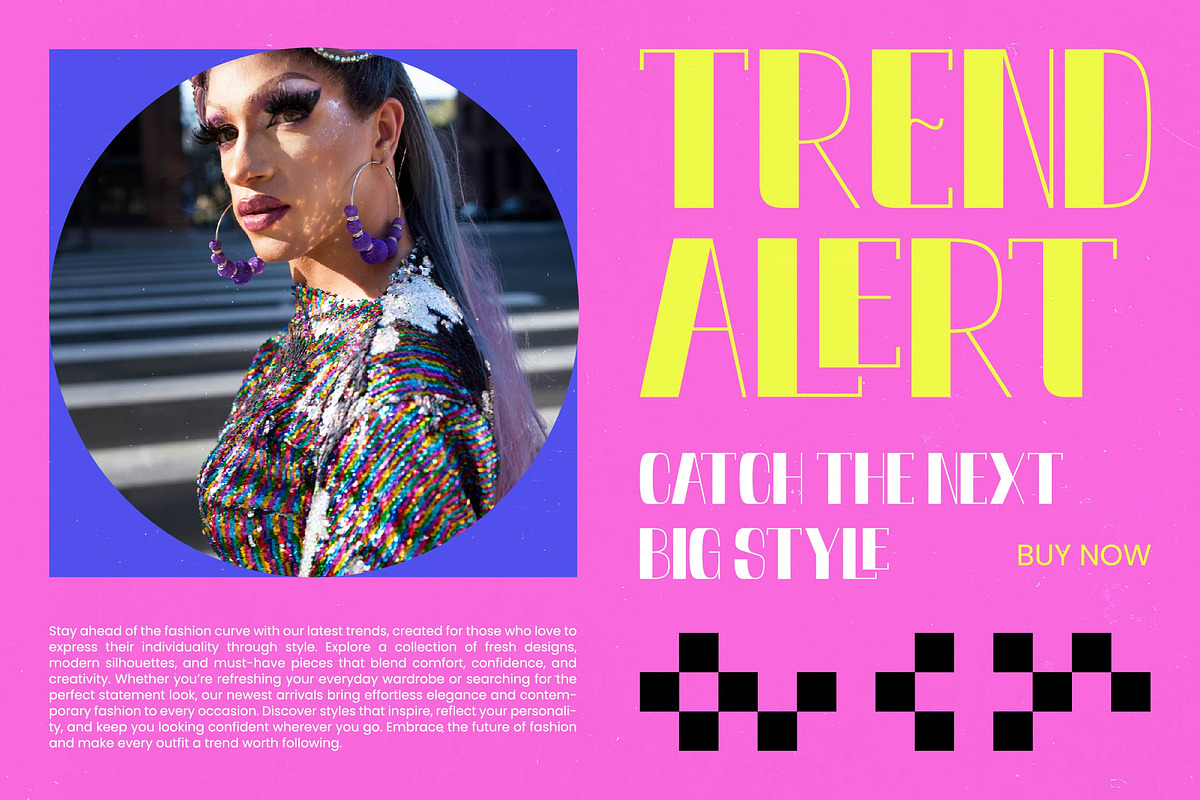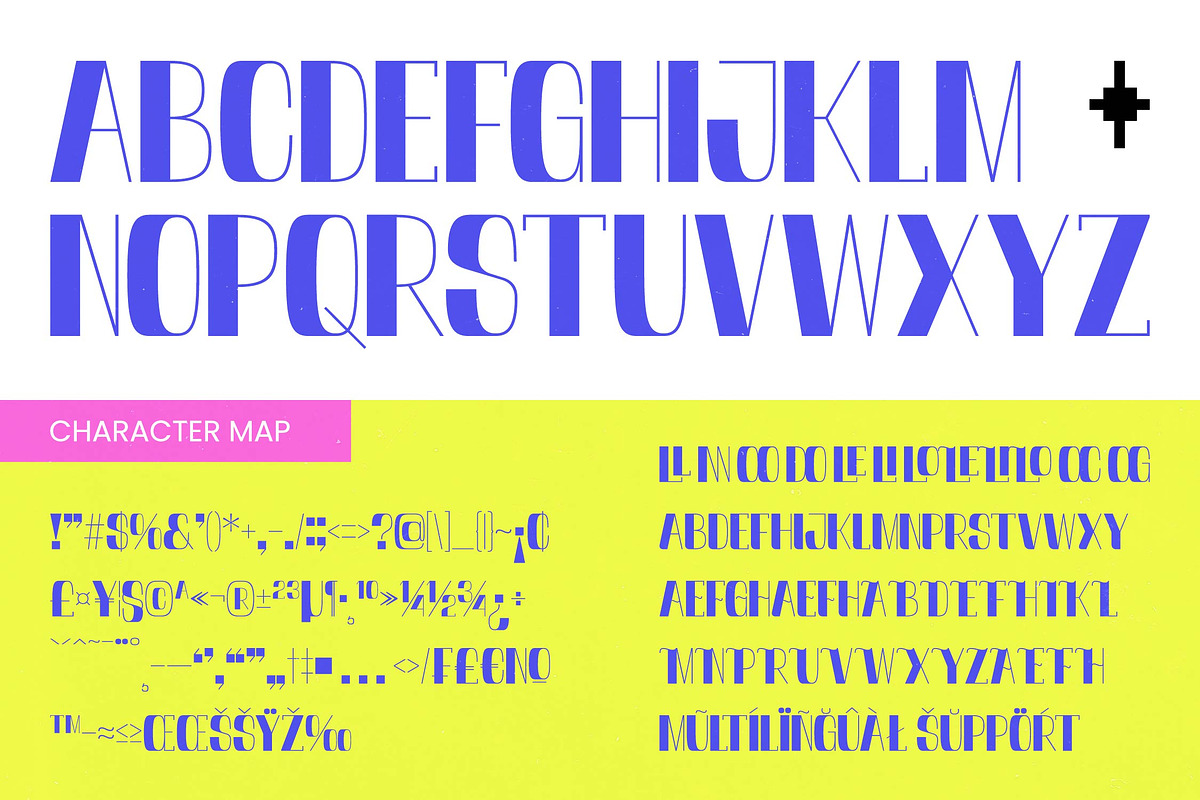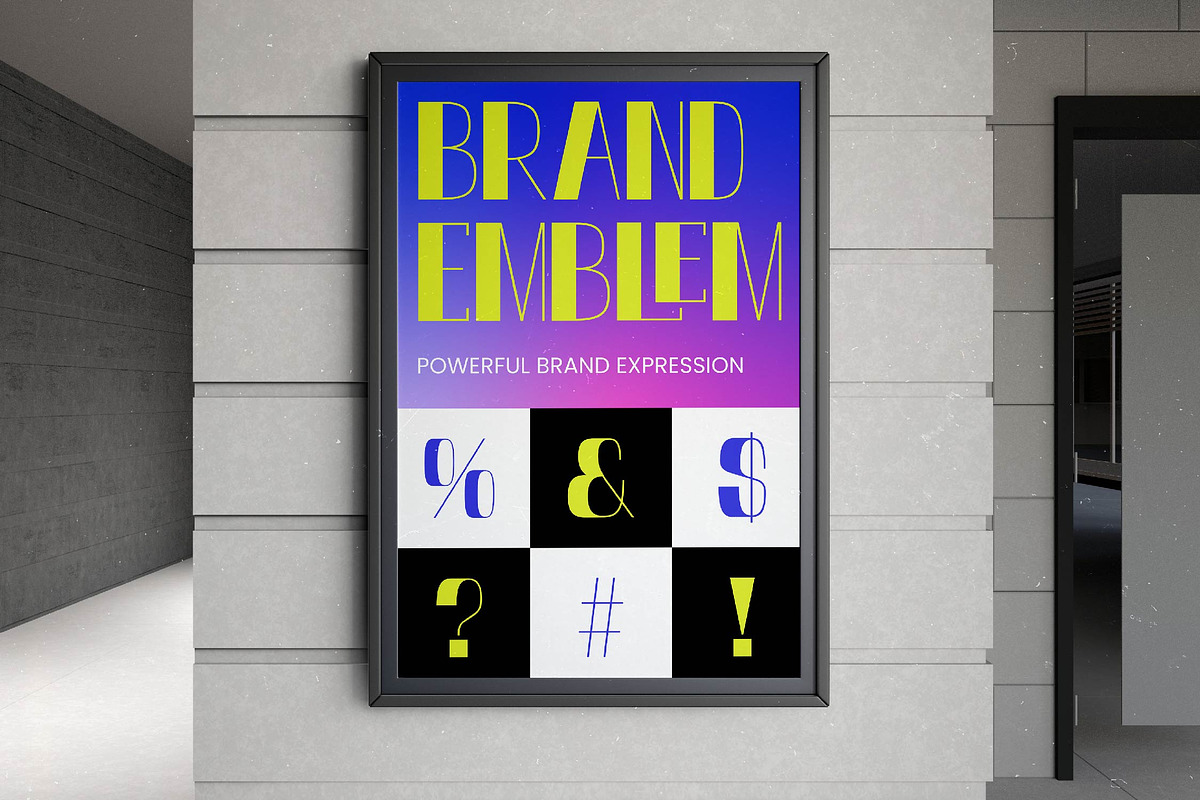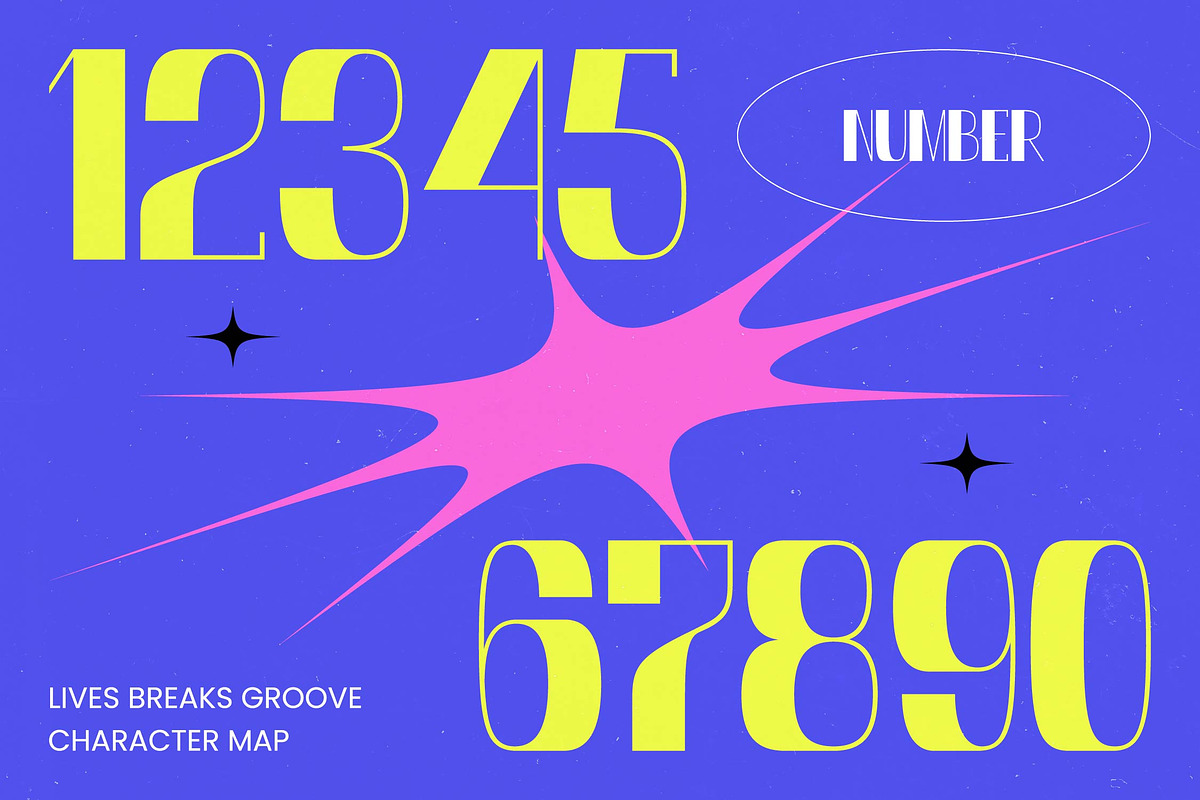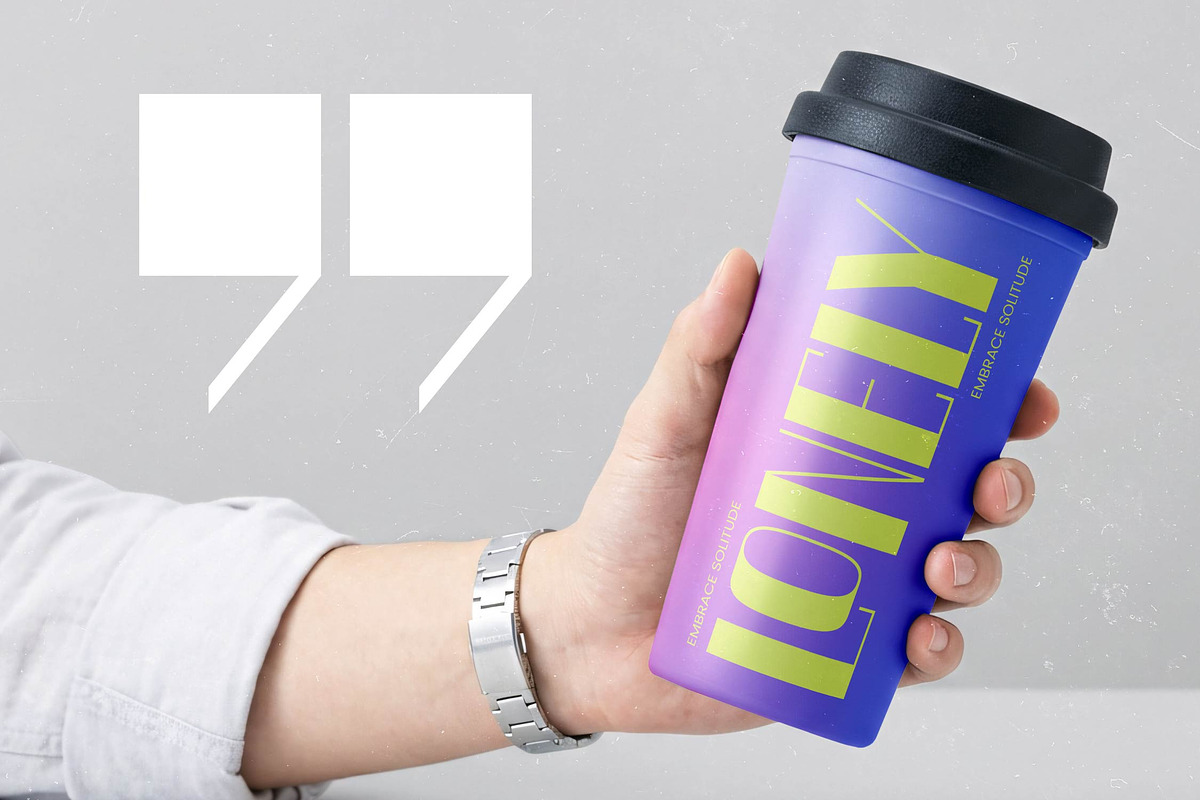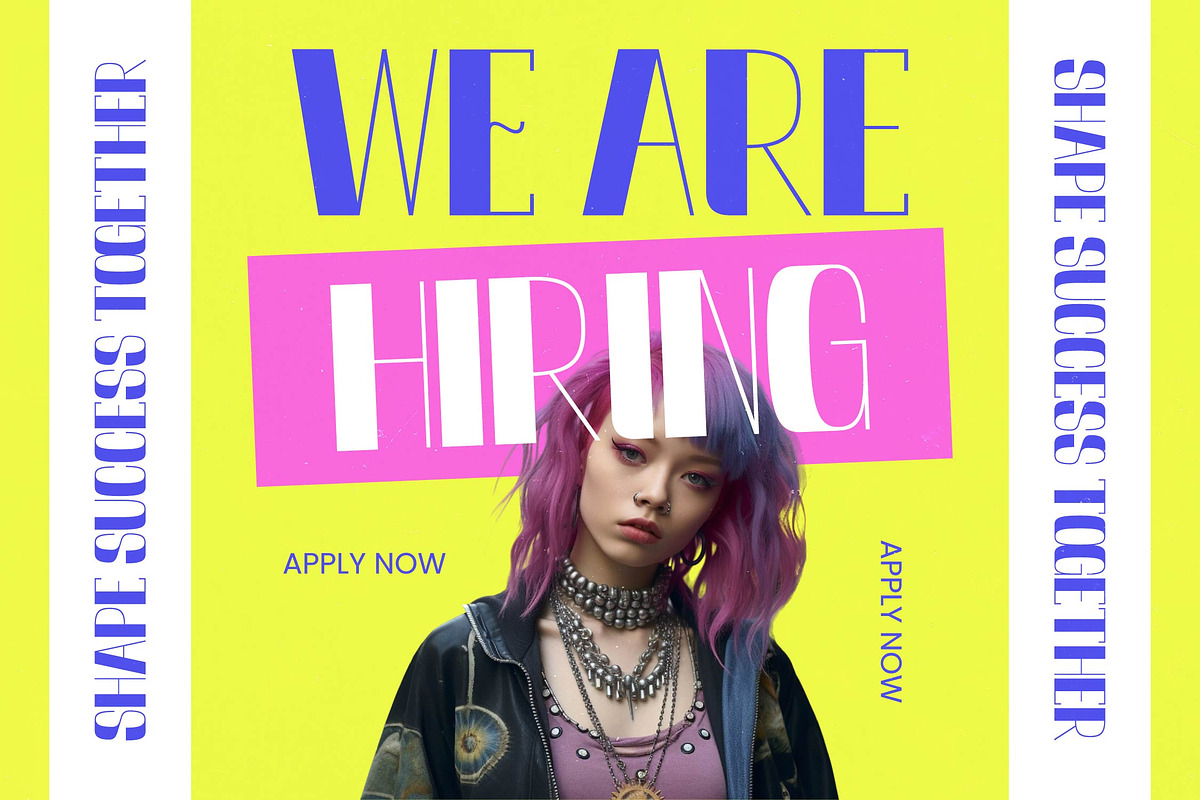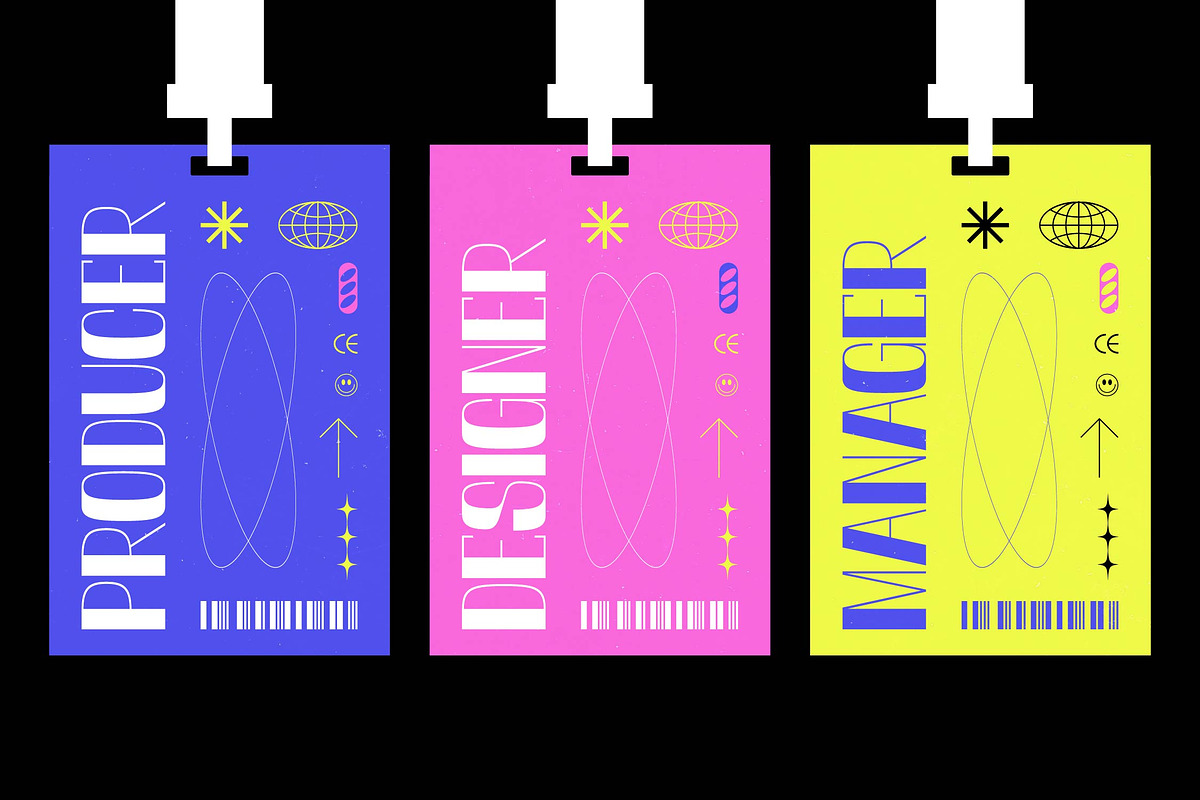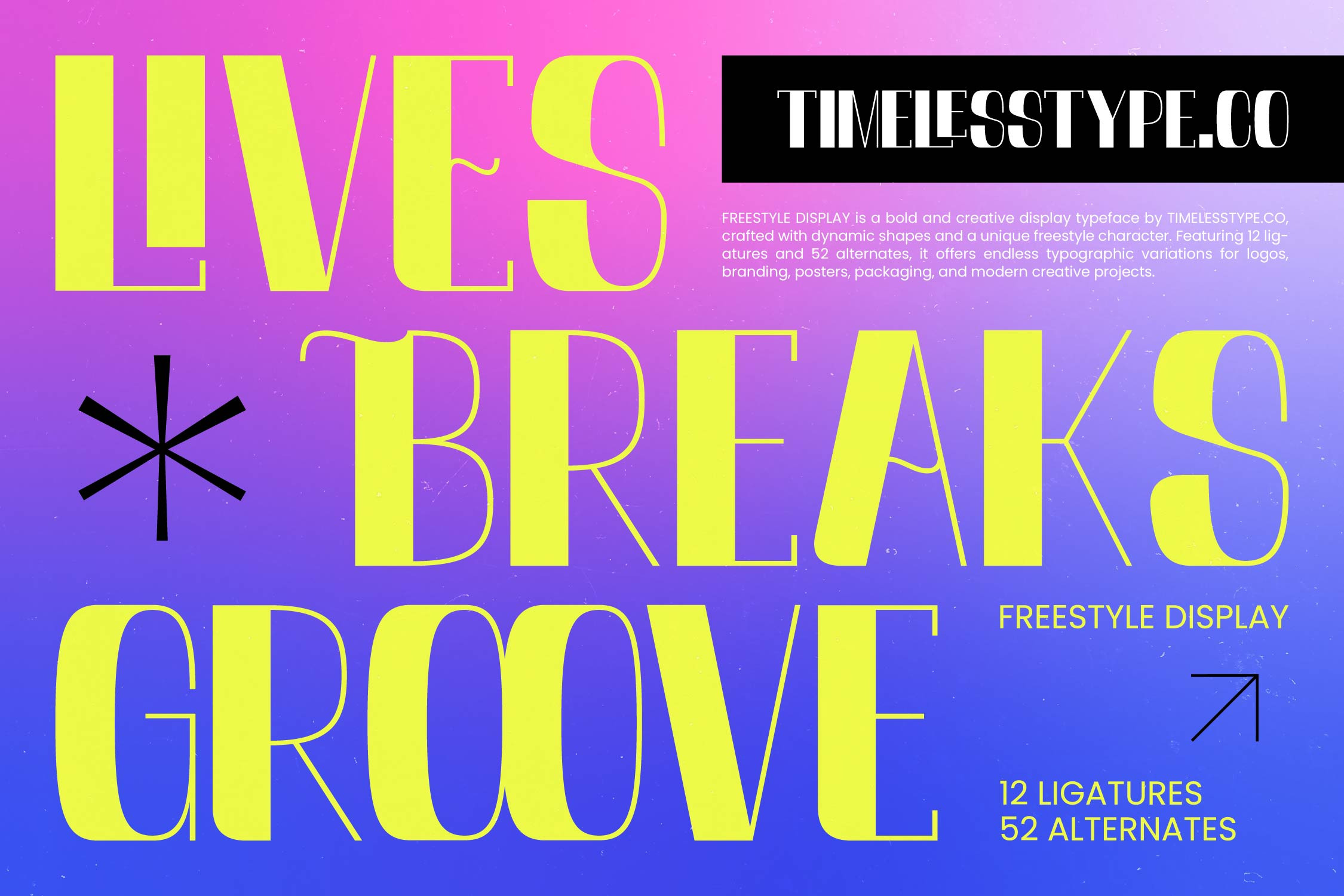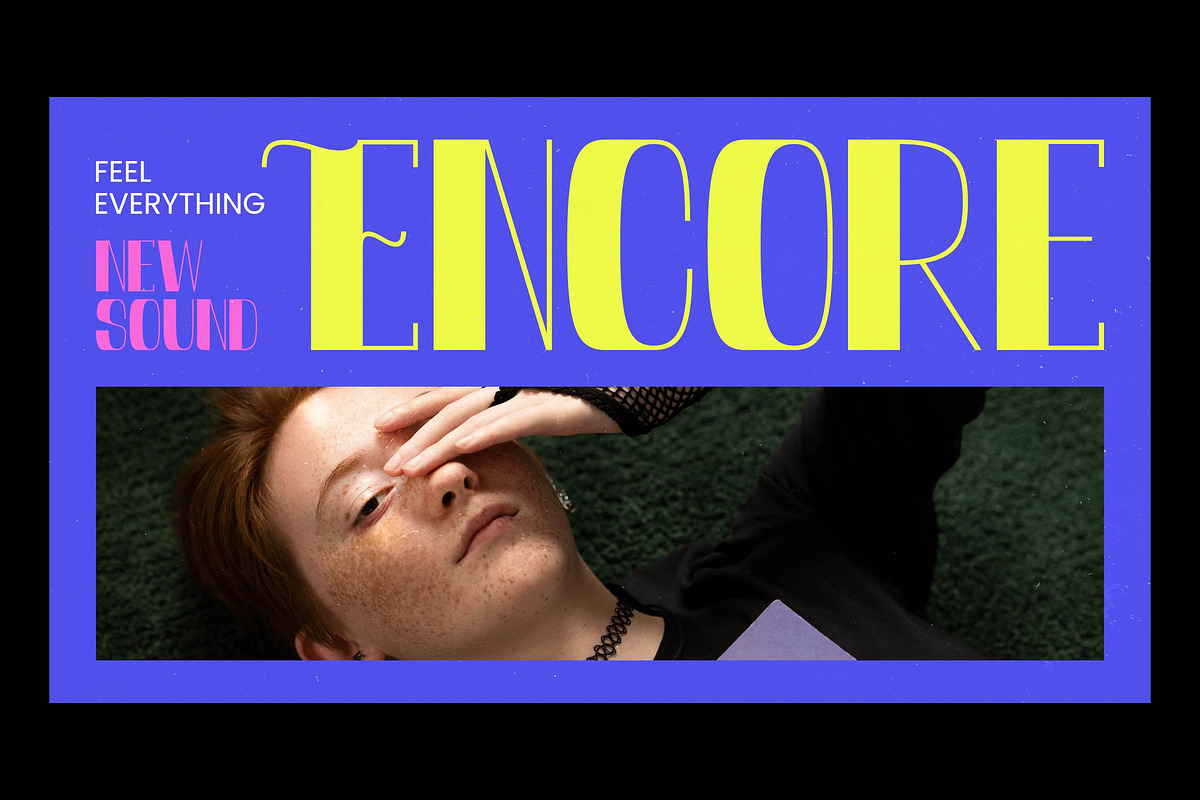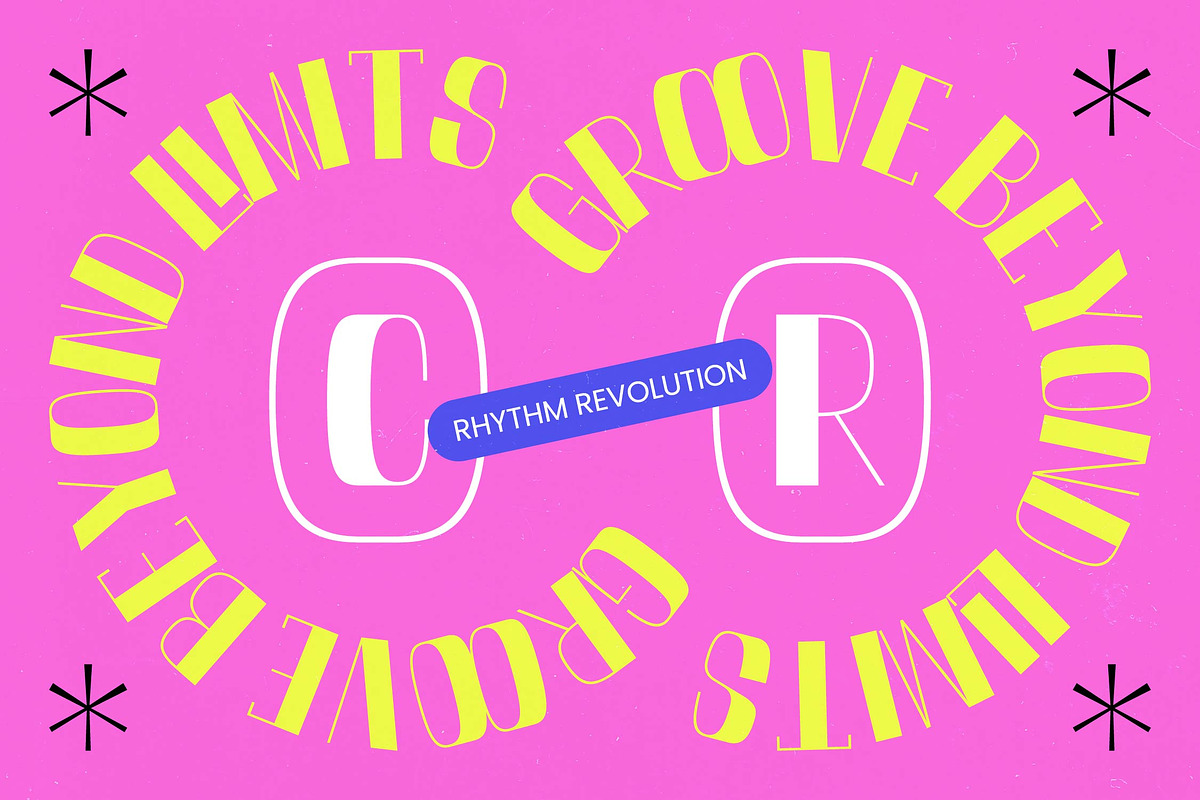
Lives Breaks Groove Freestyle Font
**Lives Breaks Groove - Freestyle Display , **Command attention with an unmatched visual energy. Lives Breaks Groove - Freestyle Display is a masterclass in high-contrast typography, blending bold, heavy strokes with delicate hairlines. This modern display typeface exudes a dynamic freestyle character that is perfect for designers looking to inject creative flair into their work. With its unique rhythmic flow and progressive aesthetic, it transforms any layout into a compelling visual statement.
Elevate your design portfolio with a versatile powerhouse. This typeface is perfectly suited for high-end luxury branding, editorial design, and premium packaging. Whether you are crafting iconic logos, experimental posters, or impactful headlines, Lives Breaks Groove - Freestyle Display provides the sophisticated edge required for contemporary industries like fashion, music, and street culture. It is the ideal solution for projects that demand a bold personality and artistic distinction.
Unlock limitless creative possibilities through extensive character options. Featuring 12 ligatures and 52 alternates, this font offers endless typographic variations, allowing for truly bespoke compositions. With its extensive multilingual support, Lives Breaks Groove - Freestyle Display adapts seamlessly across global markets, making it incredibly versatile for international projects. This robust character set ensures that your message remains visually consistent and globally accessible without sacrificing its avant-garde spirit.
Invest in a typographic asset that defines the future of design. Choosing Lives Breaks Groove - Freestyle Display means choosing a cutting-edge tool that balances legibility with artistic expression. Its geometric precision and organic flow make it a must-have resource for creative directors and graphic designers aiming for a striking visual impact. Dominate the digital and print landscape with the unmistakable style of Lives Breaks Groove - Freestyle Display.